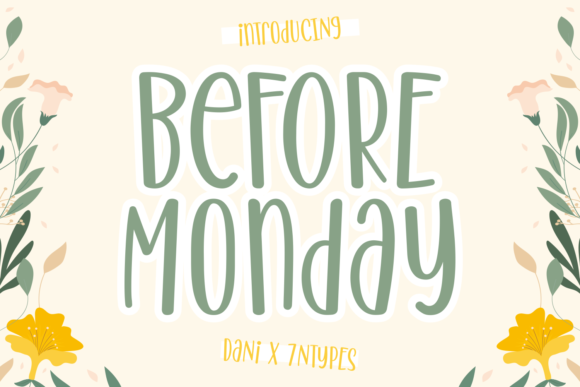
**Introducing Before Monday Font - The Perfect Digital Display Companion**
In a fast-paced digital world, captivating attention and making a lasting impression often depends on the fonts you use. Before Monday Font, the ultimate digital display companion, steps into the spotlight to fulfill this need with its irresistible charm and exceptional versatility.
**Enchanting Visual Appeal That Captures Hearts**
Before Monday Font's captivating characters exude an aura of friendliness and playfulness that instantly connects with your audience. Its carefully crafted curves, delicate strokes, and playful details create a visual symphony that dances across screens, leaving a lasting impression with every word.
**Elevating Design Projects to New Heights**
Before Monday Font's creative flair knows no bounds. Its unique style adds a touch of magic to various design projects, including branding, headings, wedding designs, invitations, signatures, logos, labels, and much more. Its ability to seamlessly blend with diverse design elements makes it a must-have asset for any creative endeavor.
**Enriching Digital Experiences with Every Click**
Before Monday Font's digital prowess shines through in its remarkable ability to enhance digital experiences. Whether it's a captivating website, an engaging social media post, or an informative presentation, this font captivates viewers, transforming ordinary content into extraordinary visual masterpieces.
**A Versatile Gem for Creative Expression**
With Before Monday Font, versatility is not just a feature; it's a defining characteristic. This font effortlessly adapts to different design styles, themes, and moods. Its inherent adaptability makes it the perfect choice for designers, marketers, and content creators who seek to make a lasting impact with their visual creations.
**Elevate Your Digital Presence with Before Monday Font**
Join the growing legion of design enthusiasts who have embraced Before Monday Font as their go-to choice for digital brilliance. Its enchanting visual appeal, boundless creativity, and remarkable versatility make it the perfect font for elevating your digital presence and captivating your audience.
Unlock the endless possibilities of Before Monday Font today and embark on a journey of creative expression that knows no limits!